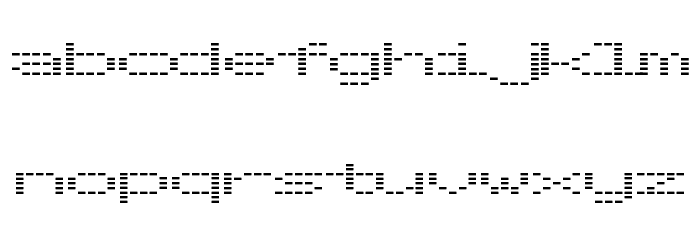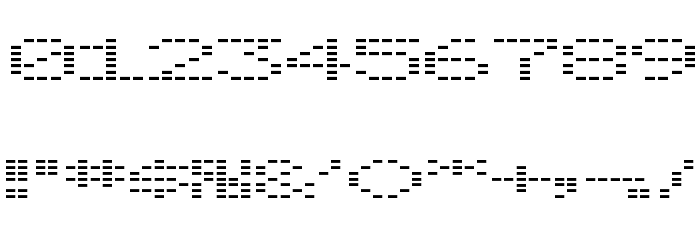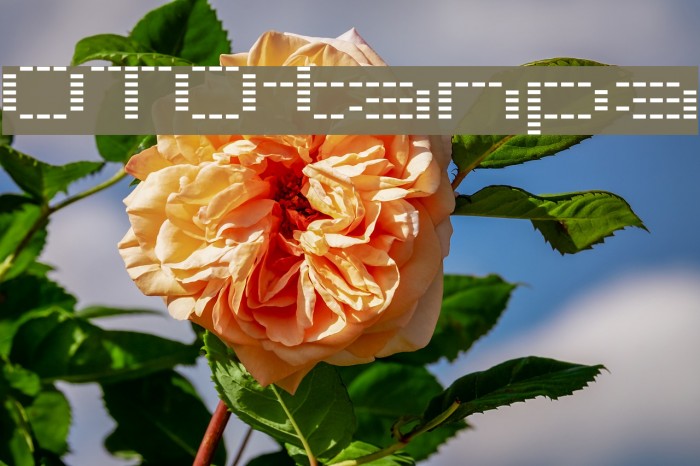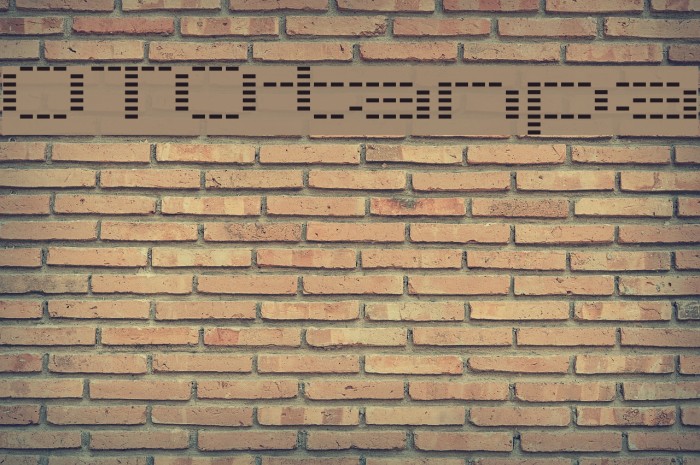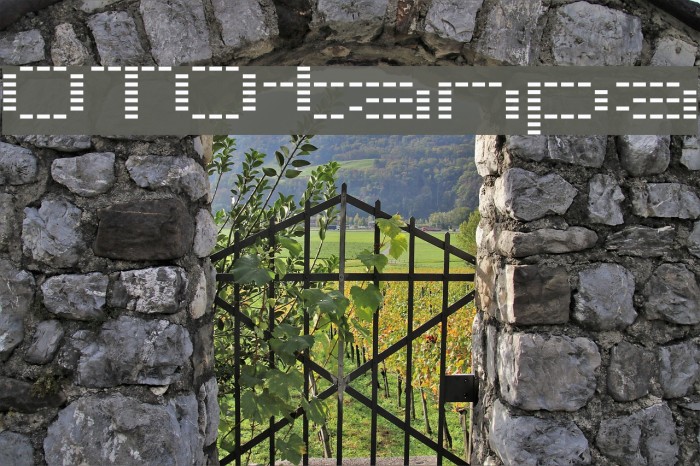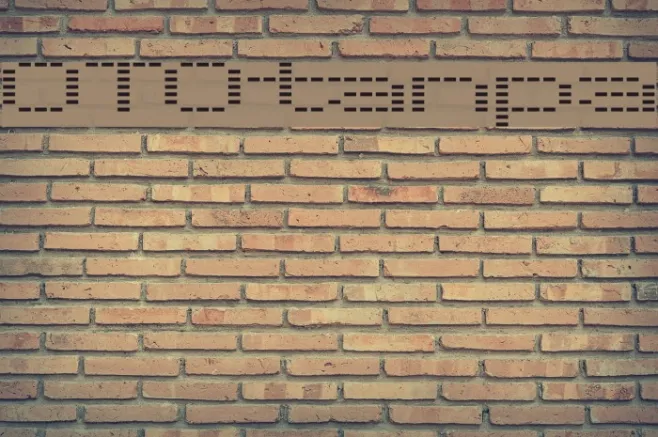
OTOtanpa Font
This font features a unique dot-matrix style, reminiscent of early digital displays and typewriters. Each character is constructed from a series of small, evenly spaced dots, creating a pixelated effect that is both retro and modern. The uppercase and lowercase letters maintain a consistent height, while the numerals and special characters are designed with the same dot pattern, ensuring uniformity across all glyphs. The font's design is clean and minimalist, making it suitable for projects that require a digital or technological aesthetic.
A dot-matrix style font with a retro digital appearance.
- Proposed Projects: Ideal for digital displays, retro-themed designs, tech-related branding, and creative projects that require a distinctive, pixelated look.
- Use Case: Headlines, Logos, Digital displays